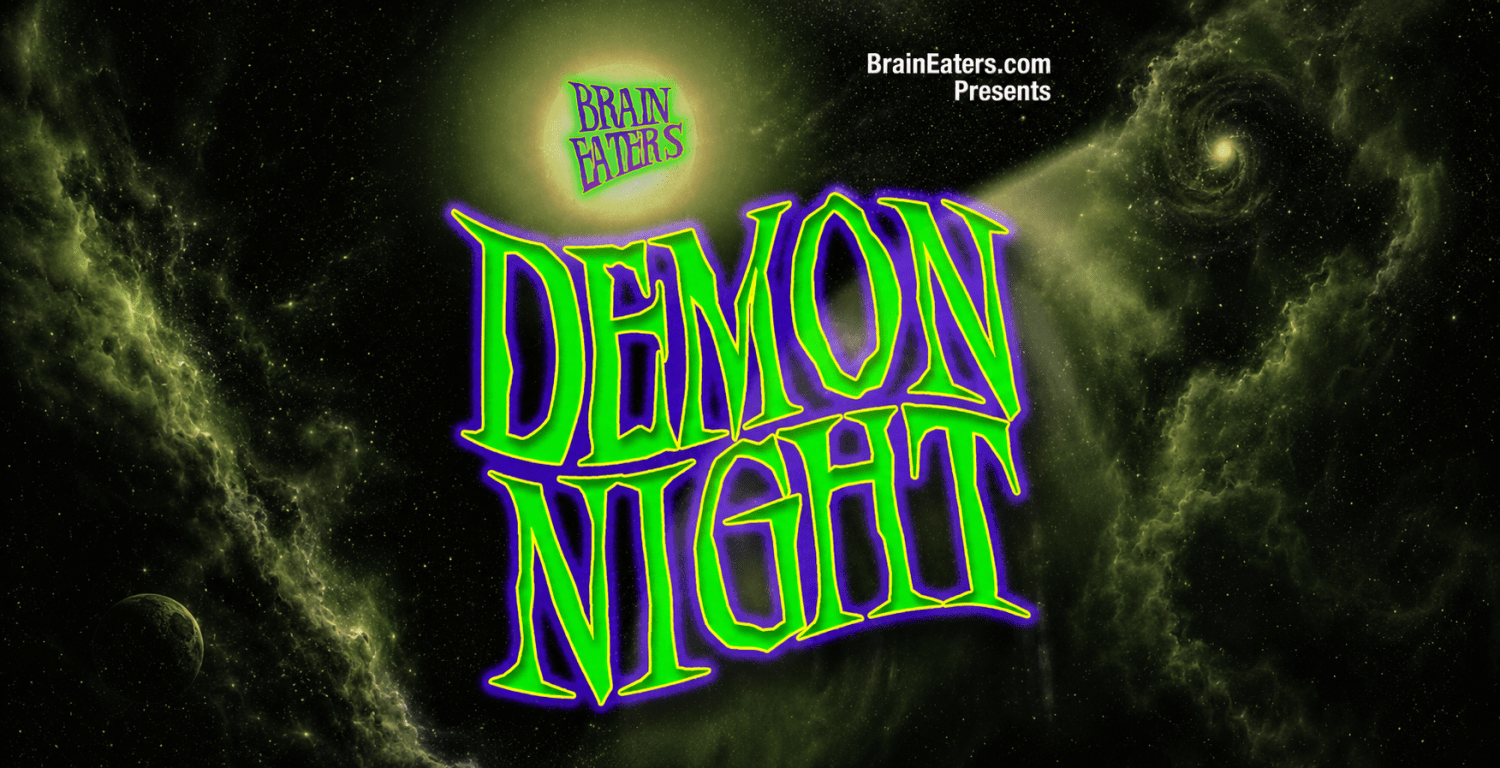
Demon Night
This font is from Brain Eaters Font Co.   Fonts based on B-Movies- Horror, Sci-Fi, Exploitation and other trash. Based on the jaggy looking letterforms of the movie poster of the similar name. A tall serif face with scary shapes.
Demon Night includes 244 glyphs.